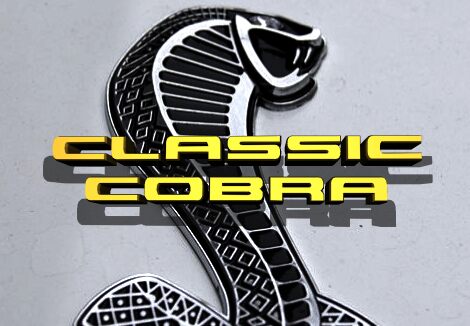
Classic Cobra Extra-Cond Ital
Classic Cobra Extra-Cond Italic font by Iconian Fonts is an expanded techno display font with a bold and futuristic style. The angular and mechanical design is strengthened with streamlined connections at both end of each character. Undoubtedly, it acquired its inspiration from the speedy cobra snake which implies that like in a blink of an eye, Classic Cobra hits its viewer with maximum impact and leaves a subtle imprint on the mind.